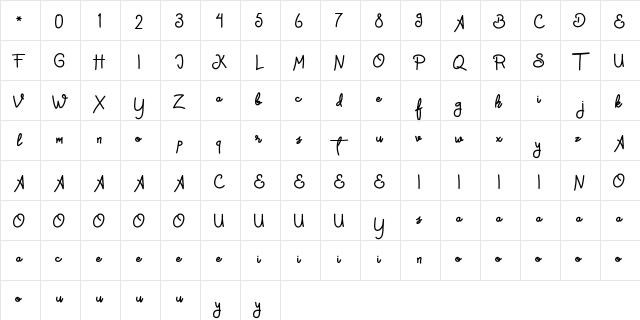
Beach Free Regular
| Foundry | Graphix Line Studio |
| Designer | Ipung |
Design Context for Beach Free Typeface
Beach Free is a composed and adaptable typeface that performs quietly and consistently across a wide range of design contexts.